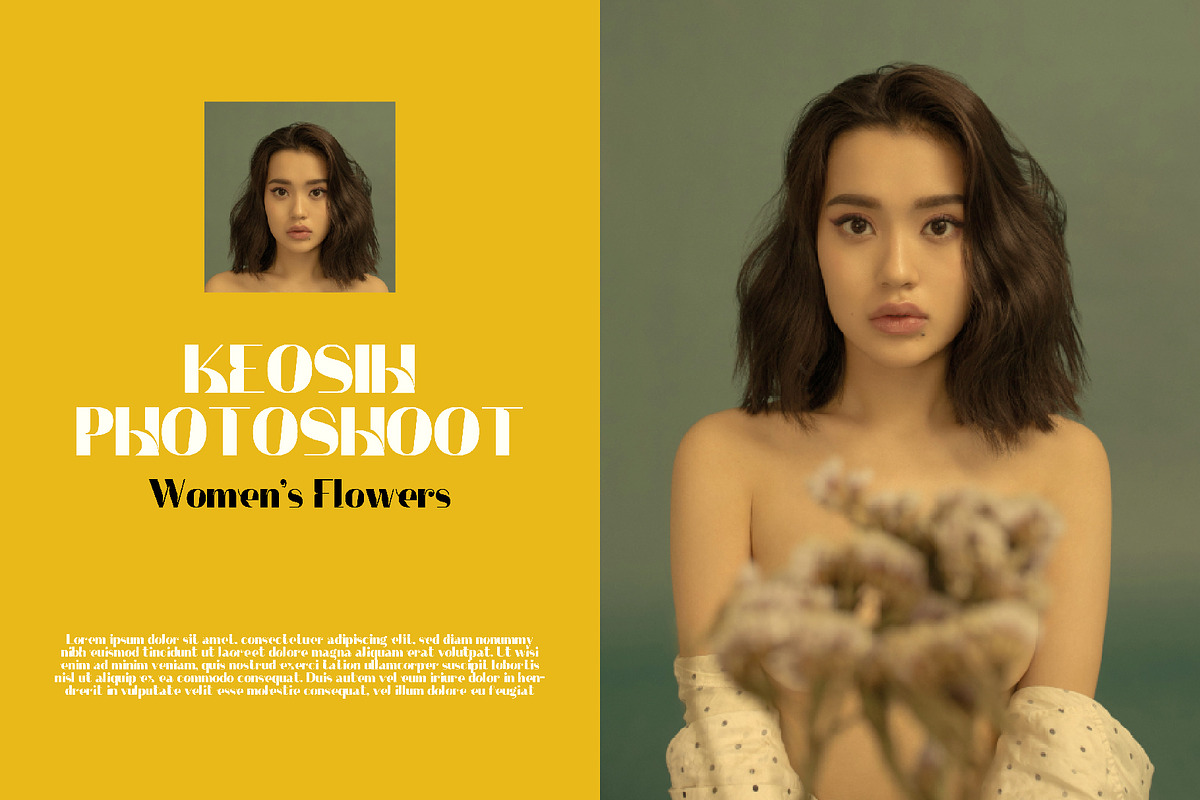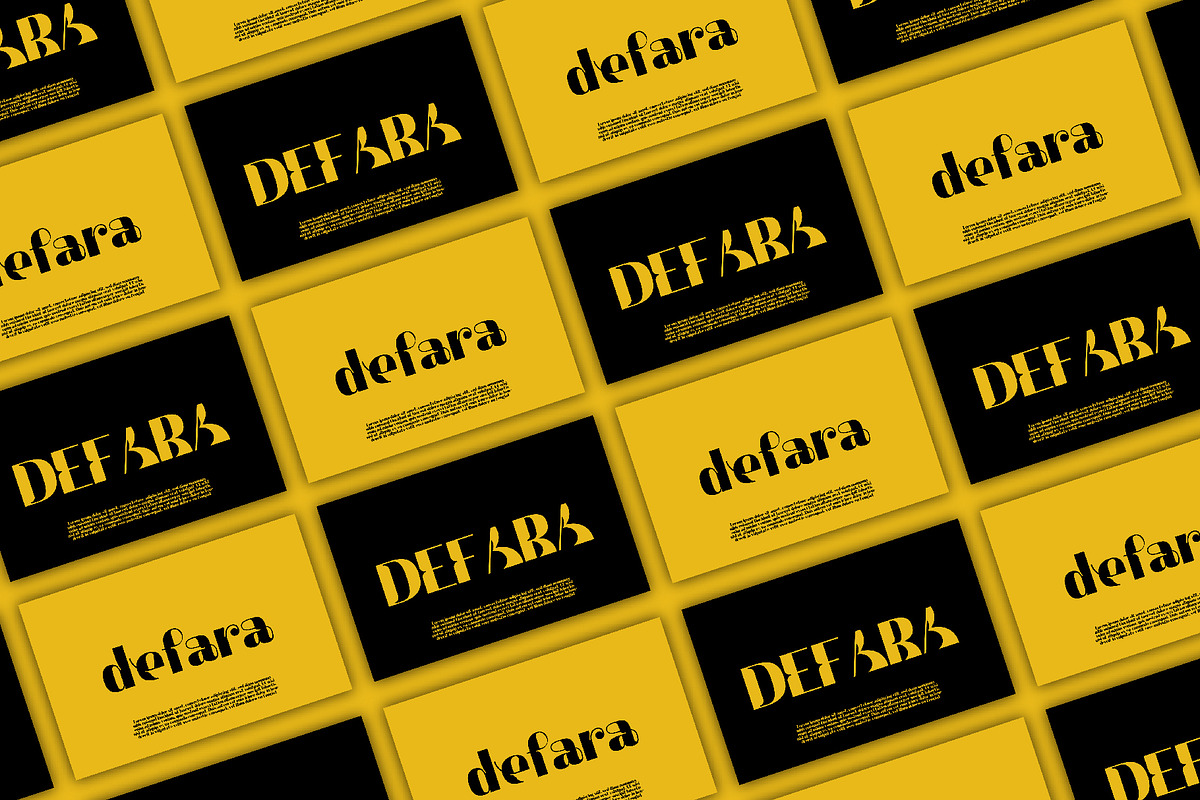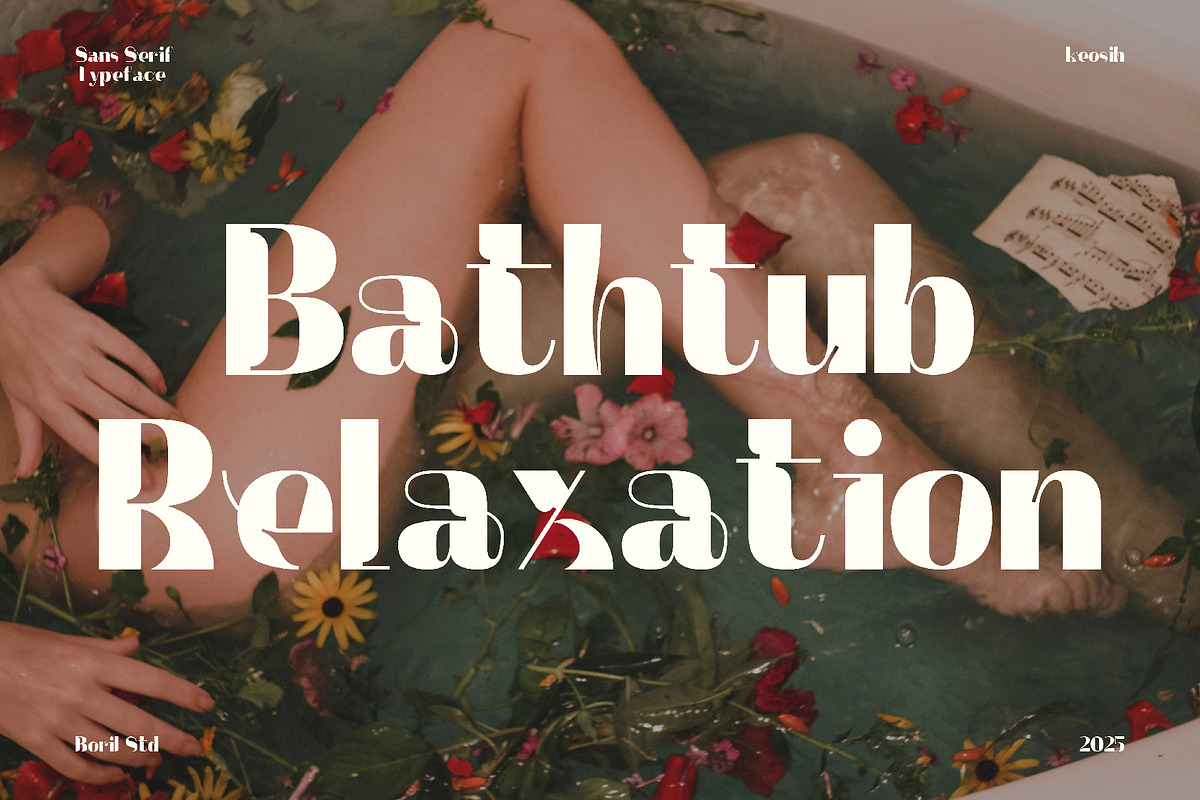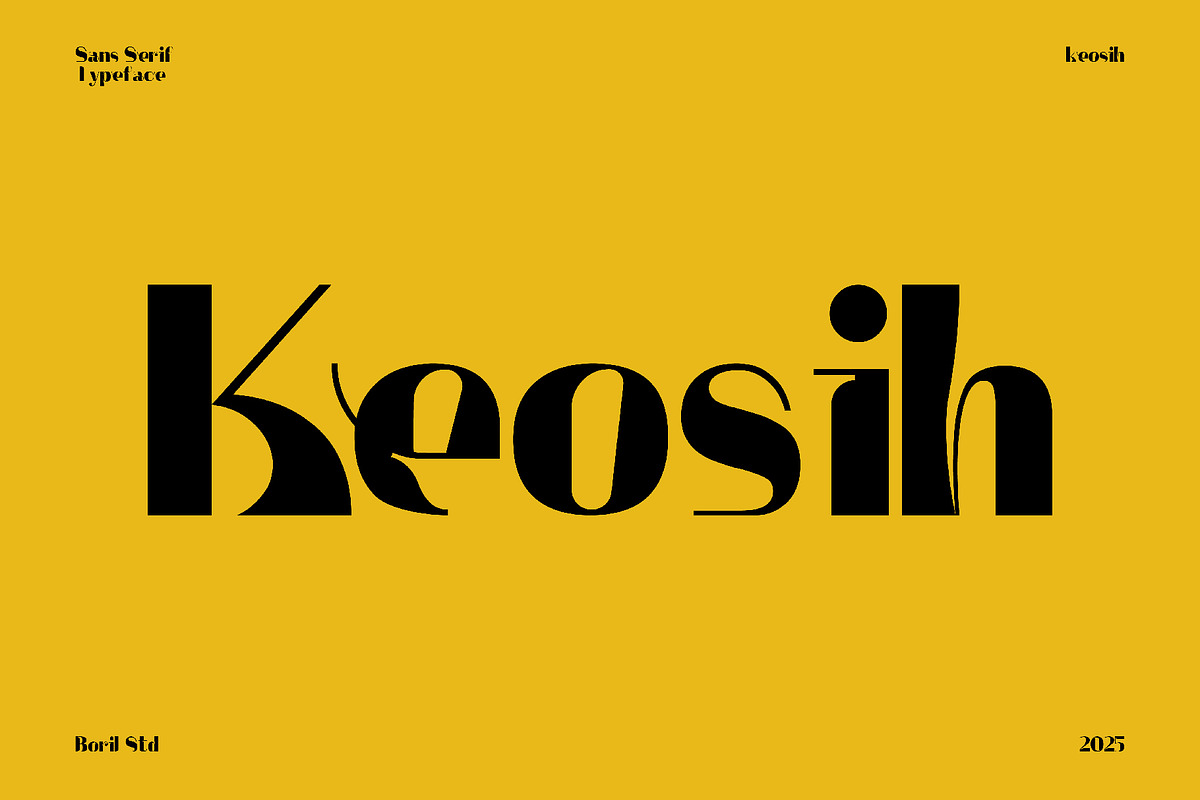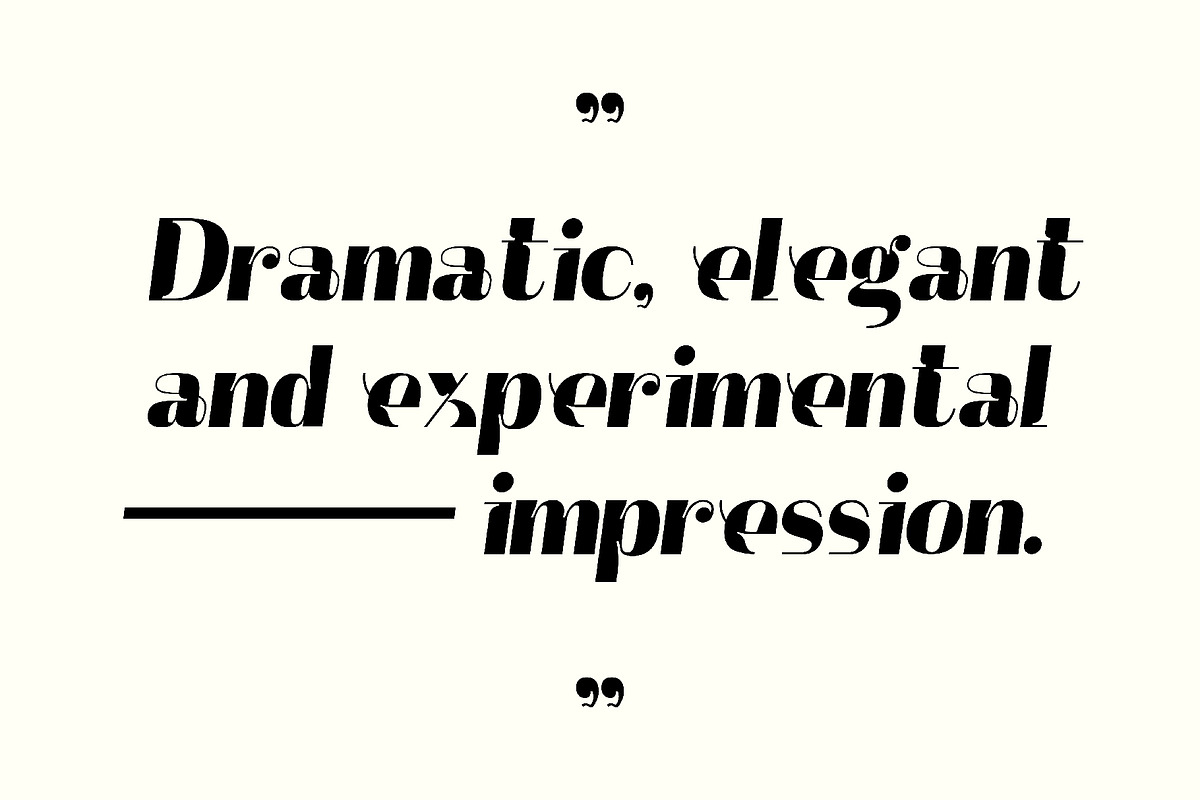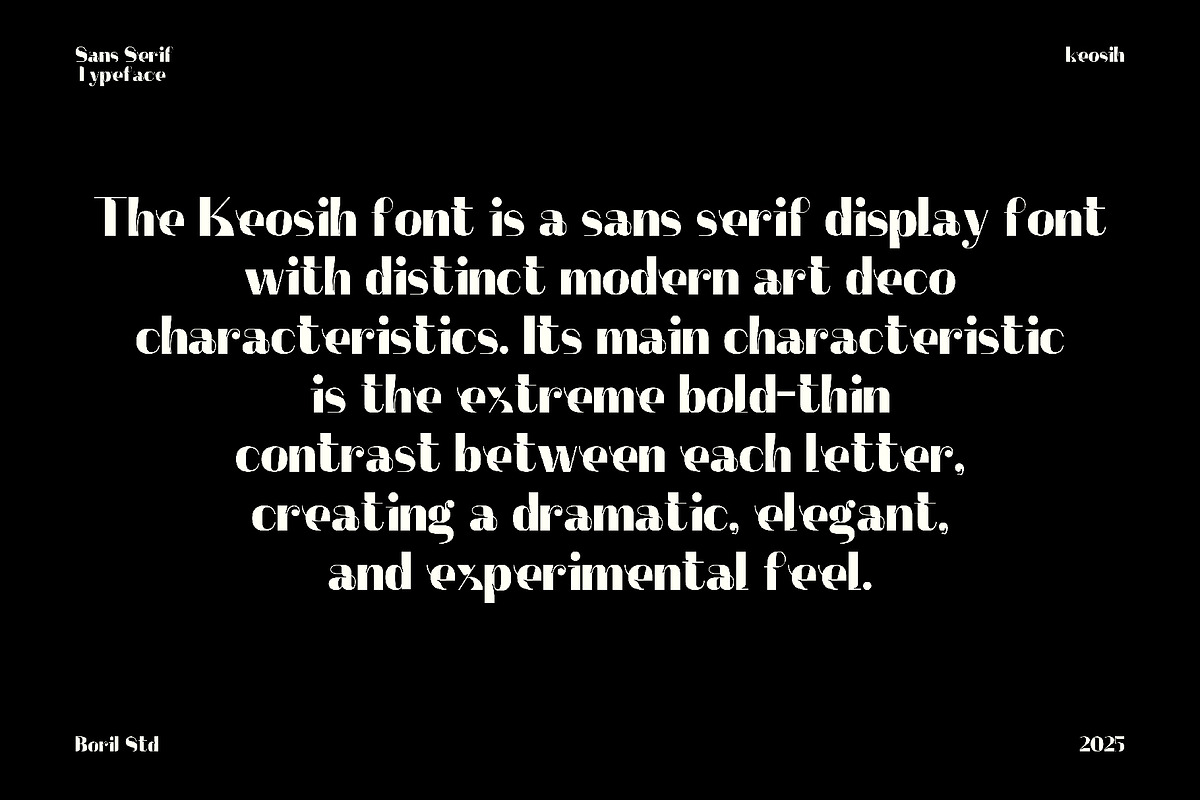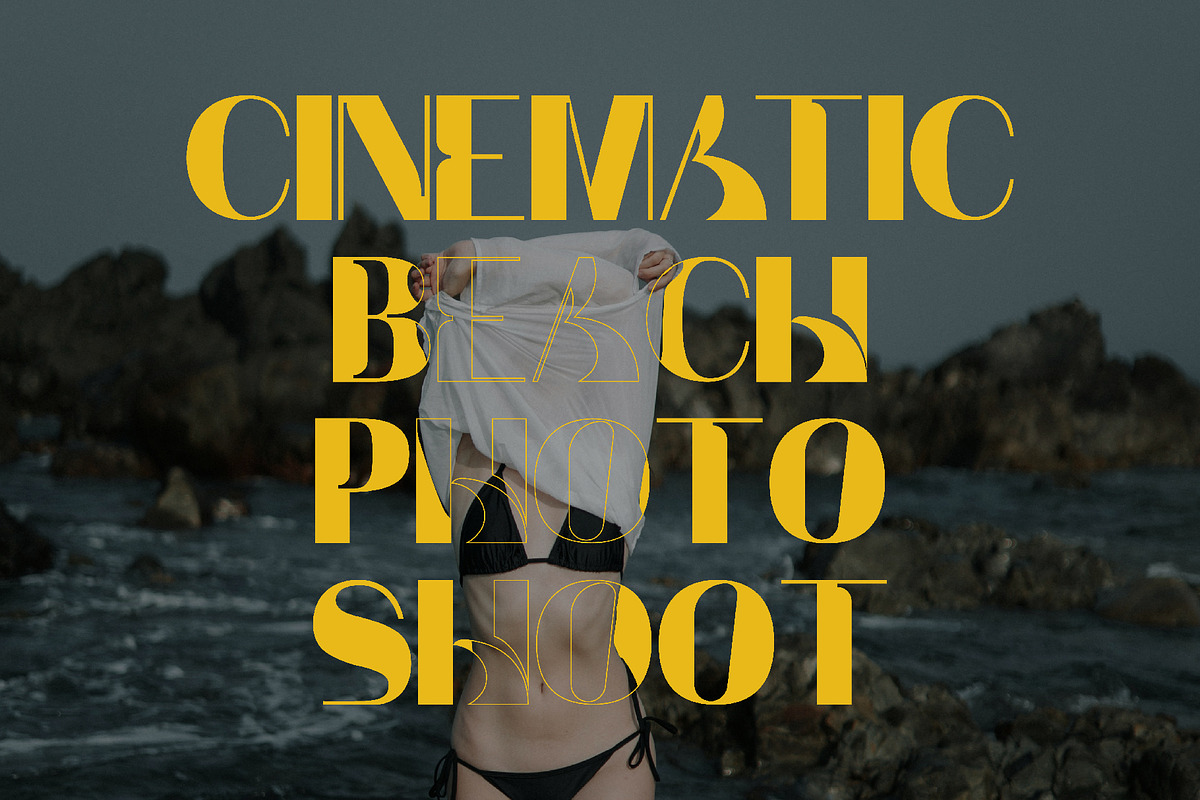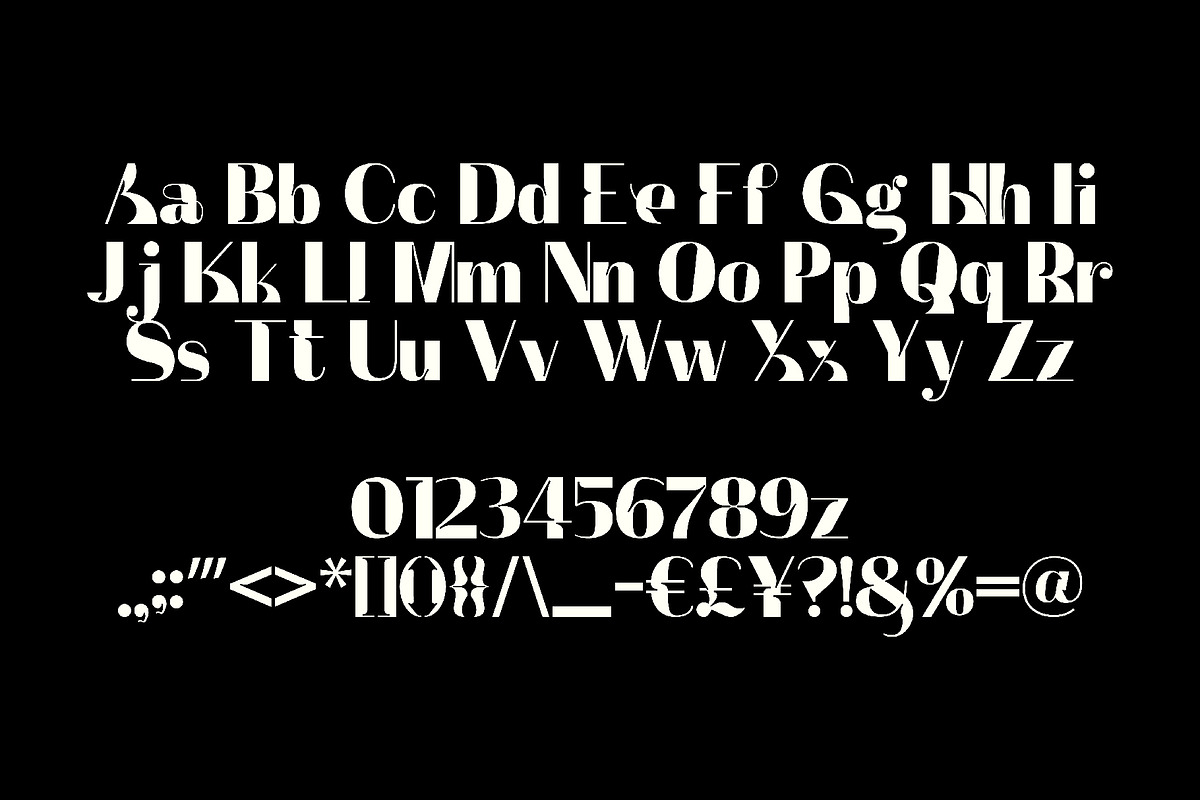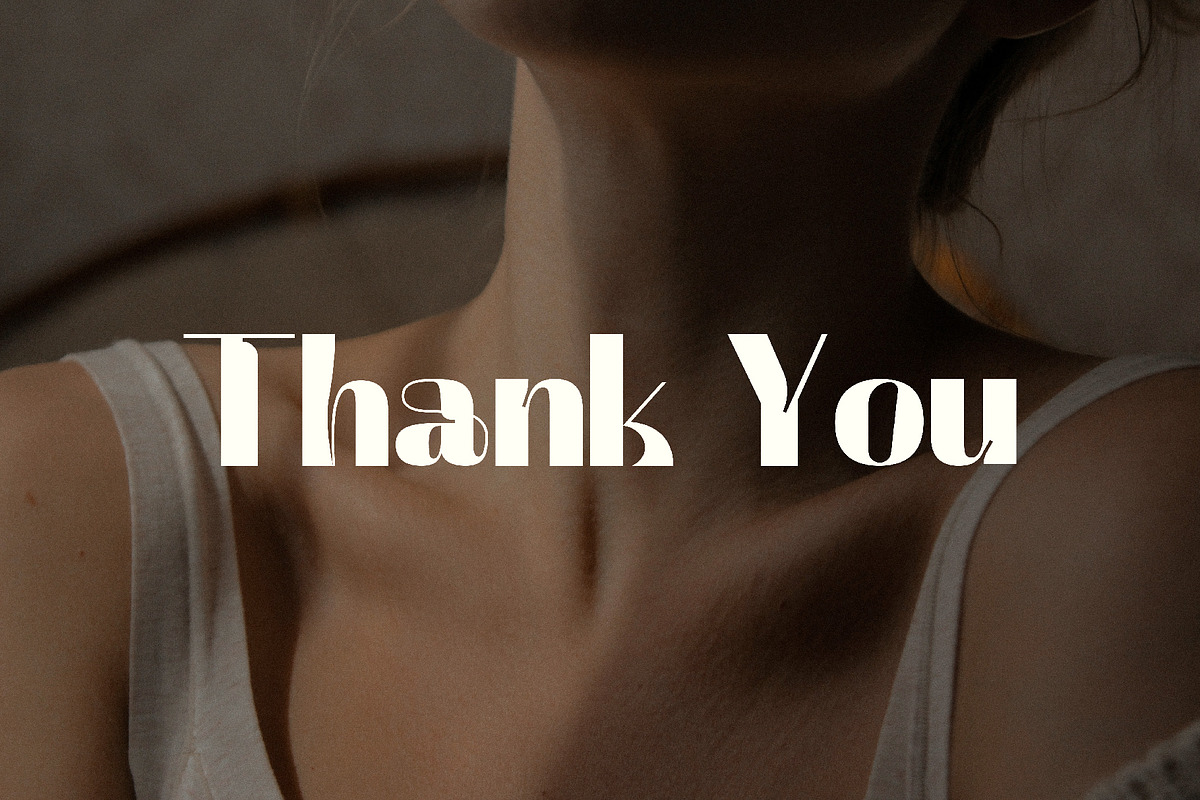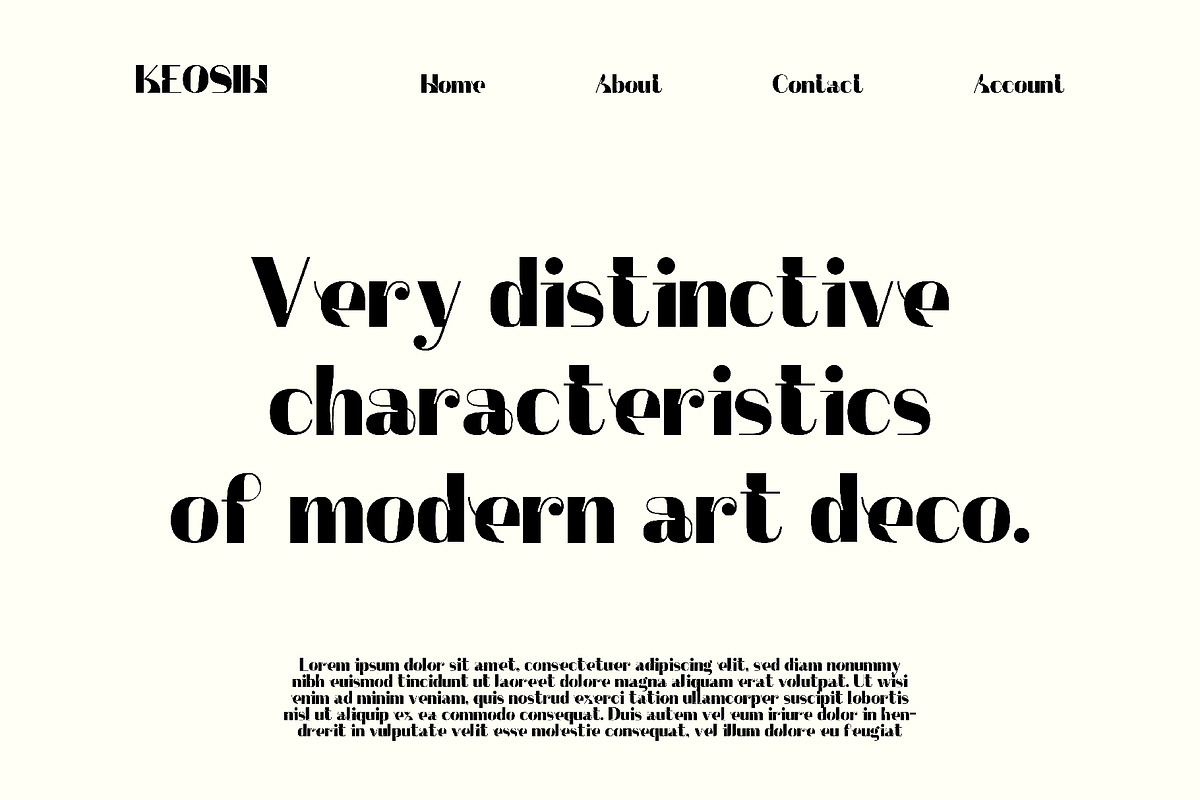
Keosih - Sans Serif Aesthetic Bold
The Keosih font is a sans serif display font with distinct modern art deco characteristics. Its main characteristic is the extreme bold-thin contrast between each letter, creating a dramatic, elegant, and experimental feel.